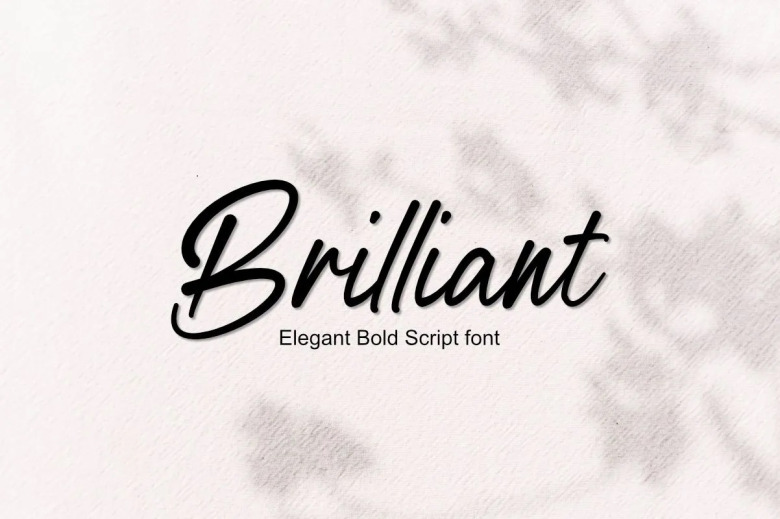
Brilliant Font
Brilliant an equally beautiful and relaxed handwritten font that’s great for delivering any message with confidence, authenticity and charm. It will elevate a wide range of crafting ideas, from cards, to branding, labels and much more.
Brilliant Handwritten Script Font